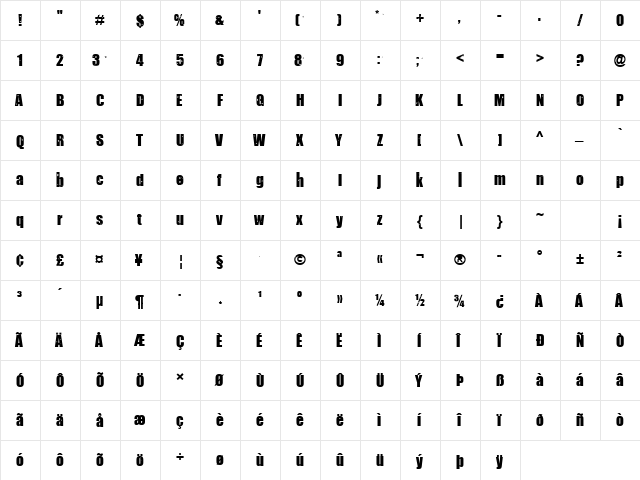
boehseonkelz Regular
Design Context for boehseonkelz Typeface
boehseonkelz is a composed and adaptable typeface that performs quietly and consistently across a wide range of design contexts.